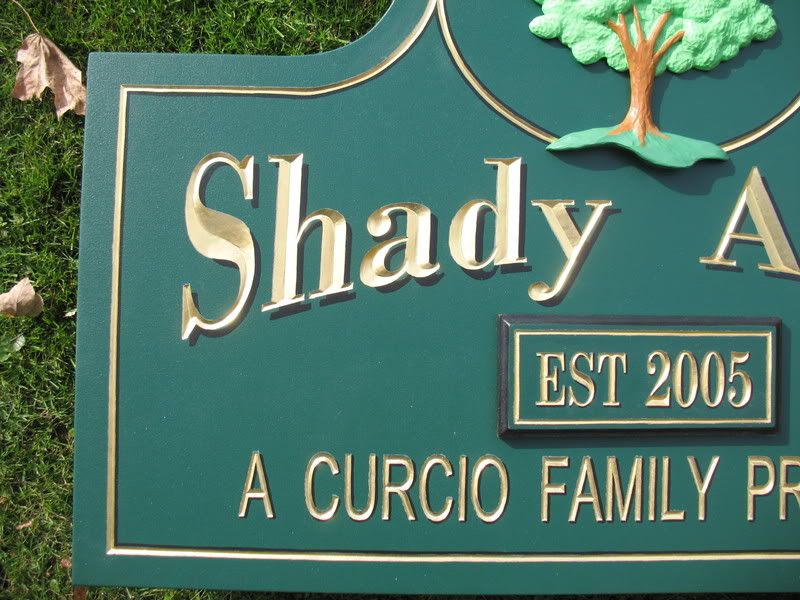
Here is a HDU/laytex sign with gold leaf carved letters with a drop shadow (I think that's what it's called). I don't think a hole can cast a shadow but I think it really helps to get the copy to "pop". This is the first drop shadow I've tried.......it needs work.......
and a closeup of the tree. BTW, the ground is a dark green and the tree is emerald....they look different in the pics.